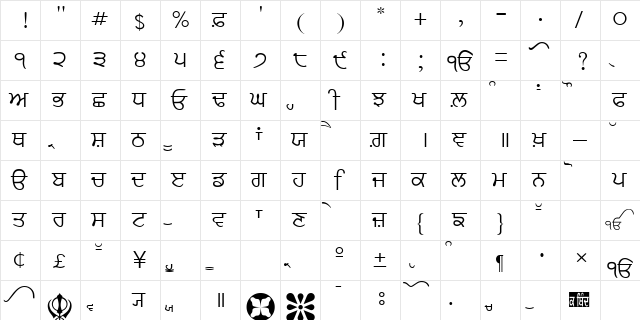
AmrLipi Regular Font Preview
AmrLipi Regular
Design Context for AmrLipi Typeface
AmrLipi is a composed and adaptable typeface that performs quietly and consistently across a wide range of design contexts.